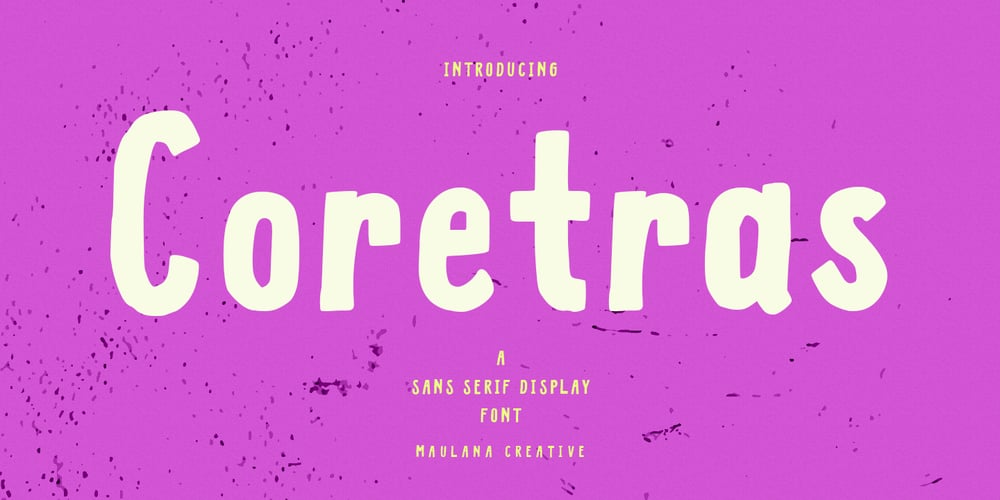
MC Coretras Font Family was designed by Gilang Maulana and published by Maulana Creative. MC Coretras contains 1 styles and family package options. Coretras is an organic handwritten sans serif font. With bold brush stroke, fun character with a bit of ligatures. To give you an extra creative work. Coretras font support multilingual more than 100+ language. This font is good for logo design, Social media, Movie Titles, Books Titles, a short text even a long text letter and good for your secondary text font with sans or serif. Make a stunning work with Coretras font.Cheers,Maulana Creative